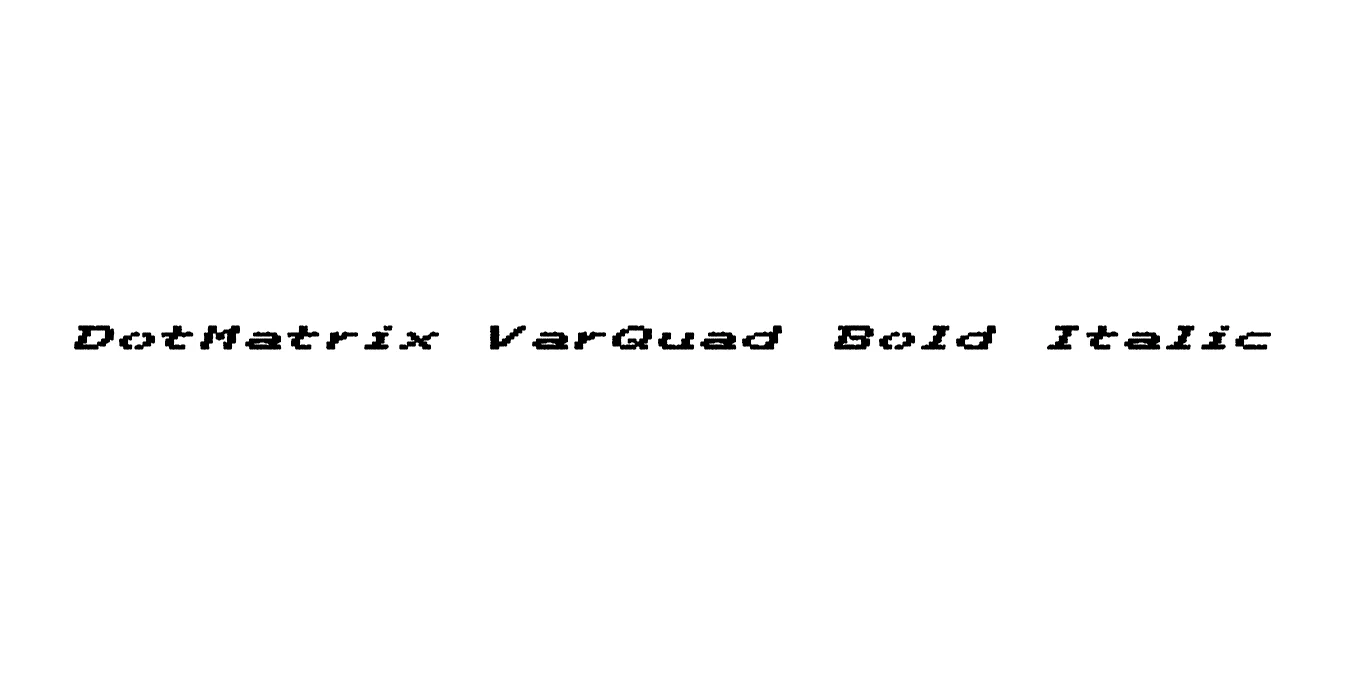
DotMatrix VarQuad Bold Italic
Designed by Matrix Design Labs
| Font Name | DotMatrix VarQuad |
| Category | Bitmap / Pixel |
| Designer | Matrix Design Labs |
| Similar Fonts | Dot Matrix, LCD Mono, Fixedsys, Merchant Copy, Pixelated Bold Italic |
DotMatrix VarQuad Bold Italic is a contemporary revival of the classic dot-matrix aesthetic used in early computer systems and ticket-printing hardware. This typeface specifically utilizes a square-grid architecture, departing from the traditional circular dot to provide a more industrial and cohesive visual texture. The addition of the bold weight and italic slant creates a sense of mechanical urgency and technical precision, making it a standout choice for high-impact displays.
Historically, pixel-based fonts were limited by hardware constraints, but the VarQuad series embraces these limitations as a stylistic choice. It features meticulously spaced quadrangular modules that maintain legibility even at smaller sizes while providing a heavy, digital-weighted presence. This font is perfect for projects seeking to bridge the gap between retro-computing nostalgia and modern digital craftsmanship.
DotMatrix VarQuad Bold Italic Best Uses
Ideal for retro-style UI, HUD displays, and cyberpunk-themed high-score screens.
Perfect for tech-centric logos, electronic music labels, and hardware packaging.
Effective for hero banners and headers in glitch-art or programming-oriented websites.
Great for technical manuals, futuristic magazine layouts, and industrial signage.